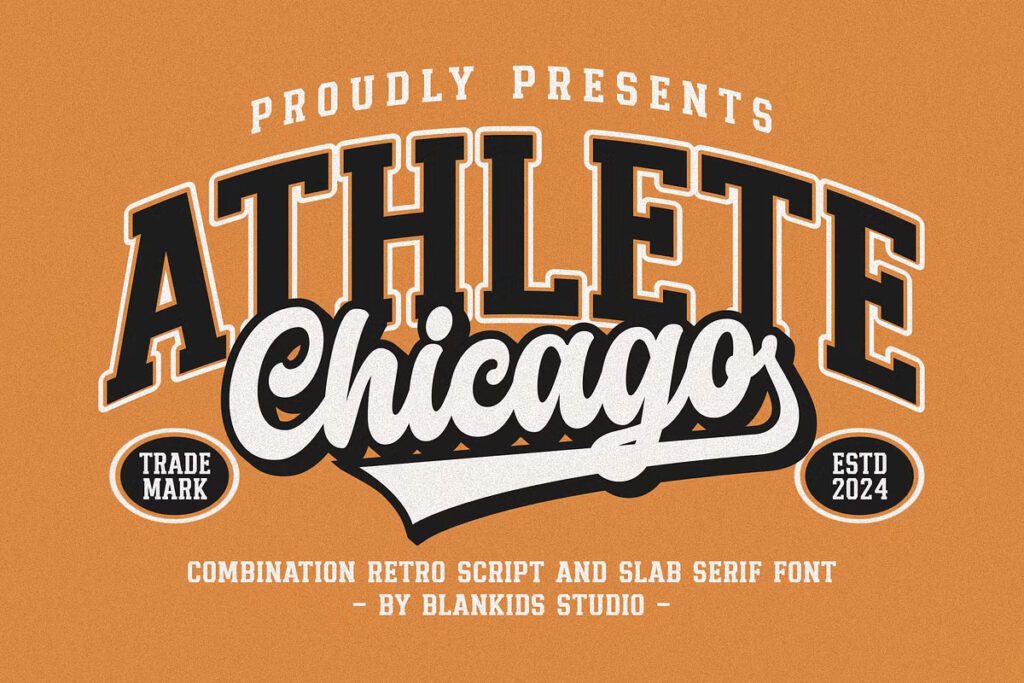
Chicago Athlete: A Retro Sporty Font for Bold, Professional Designs
Are you looking for a font that brings the perfect blend of retro vibes and athletic energy? Look no further than Chicago Athlete by Blankids Studio. This unique combination of retro sporty fonts offers versatility for any professional project, from branding and packaging to logos and promotions. Whether you’re working on varsity-inspired designs or creating bold promotional materials, Chicago Athlete will give your project that nostalgic yet modern sporty flair.
What Makes Chicago Athlete Stand Out?
Retro Sporty Aesthetic: Chicago Athlete is designed to evoke the essence of classic varsity style with a sporty edge. Its bold letterforms make it perfect for athletic branding, sports team logos, and even product packaging for fitness brands.
Four Font Combinations: This font package includes four font styles—two script and two slab serif options—giving you the flexibility to mix and match them across your projects. These distinct variations let you create dynamic, visually engaging designs that capture attention.
Ideal for a Range of Applications: Whether you’re working on a logotype, poster, branding, or product packaging, Chicago Athlete fits effortlessly into a variety of professional projects. Its versatile design ensures that your text looks bold, athletic, and retro-cool.
Key Features of Chicago Athlete
Full Retro Sporty Letter Set: This font includes a complete set of uppercase and lowercase letters, numerals, and punctuation marks, making it perfect for robust typography solutions. It’s a complete package for any designer wanting to capture that retro sporty feel.
Perfect for Athletes, Sports Brands, and Bold Designers
Chicago Athlete is the go-to font for designers aiming to create bold, sporty designs that stand out. It’s perfect for projects that need a combination of energy, nostalgia, and boldness. Whether you’re designing for a varsity team, a sports event, or fitness branding, Chicago Athlete will help you achieve the look you want.
The Chicago Athlete font collection offers a retro sporty vibe that’s perfect for adding a bold and dynamic element to any design. With its versatility and professional-grade quality, this font combination is ideal for designers looking to create powerful, nostalgic designs.